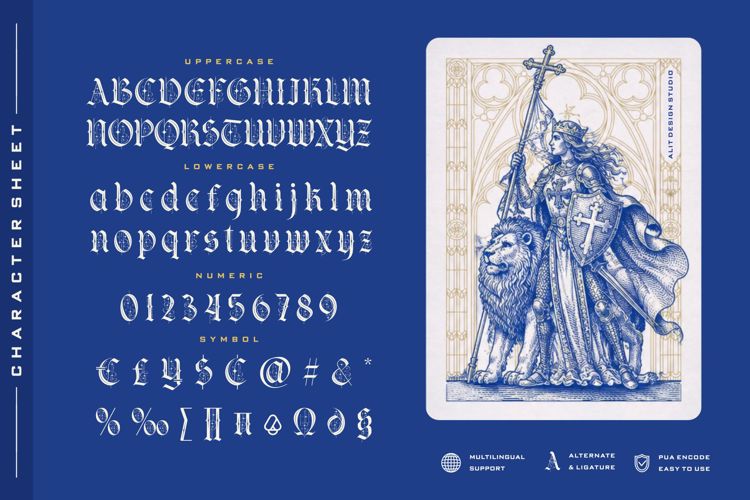
Strata magic Font
Strata Magic Typeface – Premium Gothic Display Font
Step into a realm of mystical elegance with the Strata Magic Typeface, a breathtakingly intricate display font that seamlessly bridges the gap between classical gothic typography and contemporary design. Crafted with meticulous attention to detail, this typeface features striking ornamental flourishes, star-studded accents, and a bold structure that commands attention.
Strata Magic is designed for creatives who want to add a touch of timeless mystery, sophistication, and raw energy to their artwork. It is the perfect choice for premium streetwear brands, vintage-inspired posters, album covers, dark-themed branding, editorial layouts, and esoteric merchandise.